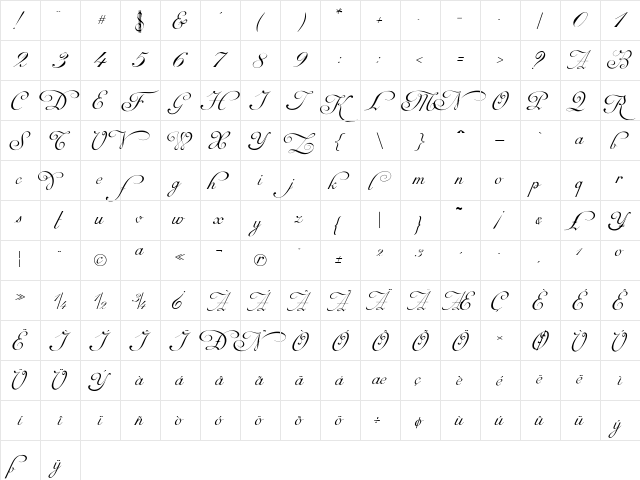
Mirella Script Limited Free Version.vfb Regular Font Preview
| Foundry | Iza W, Paulo W, Intellecta Design |
Design Context for Mirella Script Limited Free Version.vfb Typeface
Mirella Script Limited Free Version.vfb brings a calligraphic fluidity to the page — its connecting strokes and expressive curves give it an unmistakably human quality.
Font Pairing: Combine Mirella Script Limited Free Version.vfb with a simple geometric sans for maximum contrast — the tension between flowing curves and clean structure is a classic typographic pairing.
Pro Tip: Pair Mirella Script Limited Free Version.vfb with a clean sans-serif for supporting text. The contrast between fluid script and geometric structure creates an elegant typographic hierarchy.